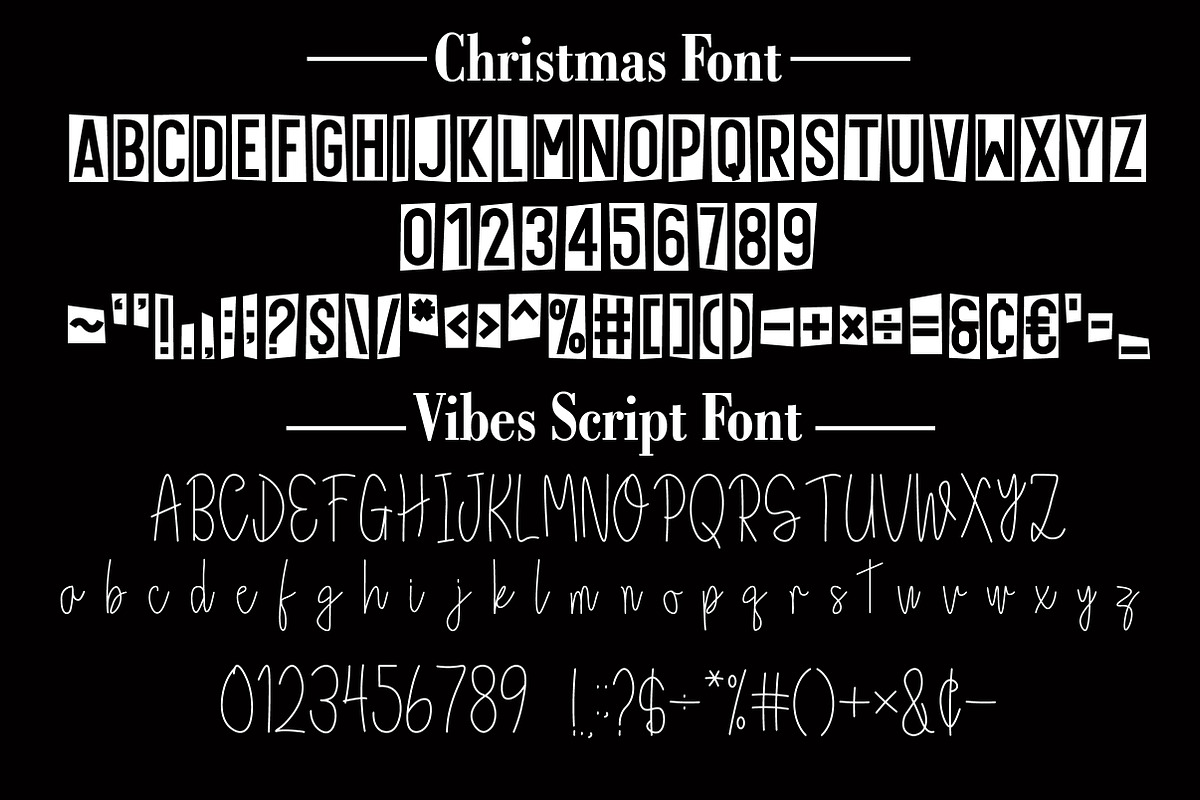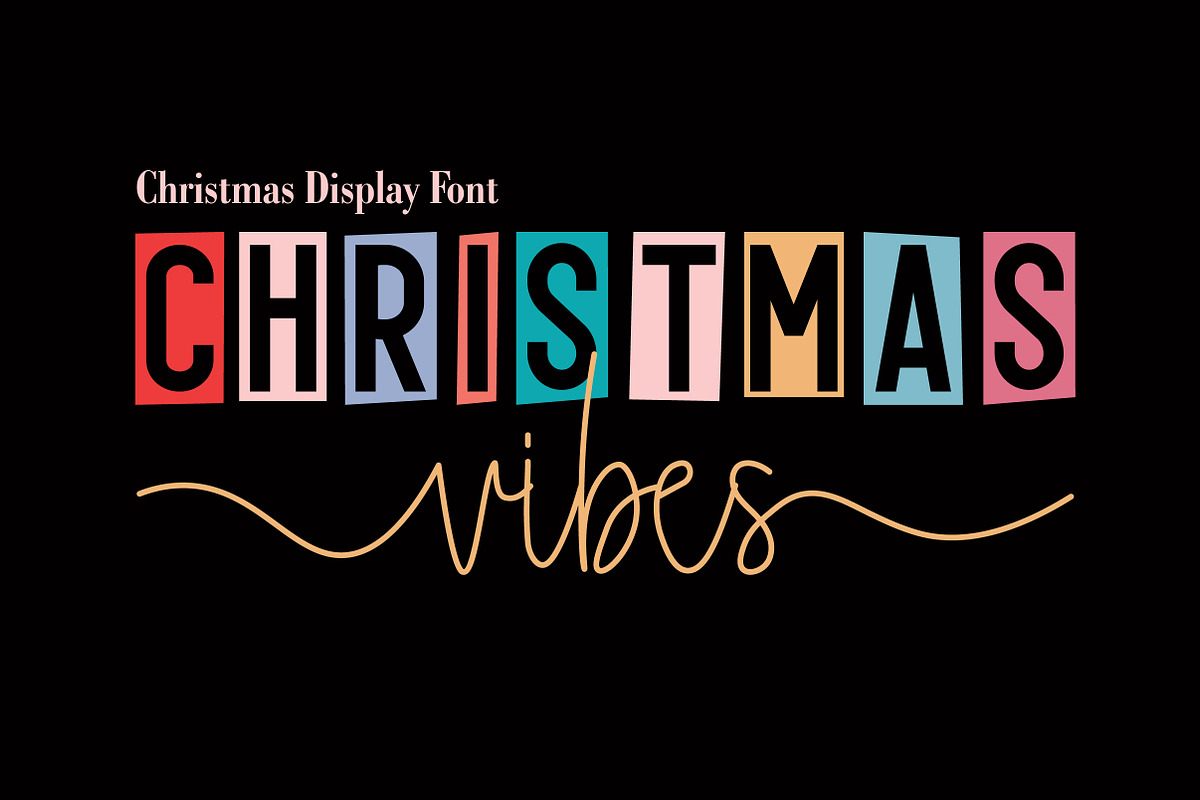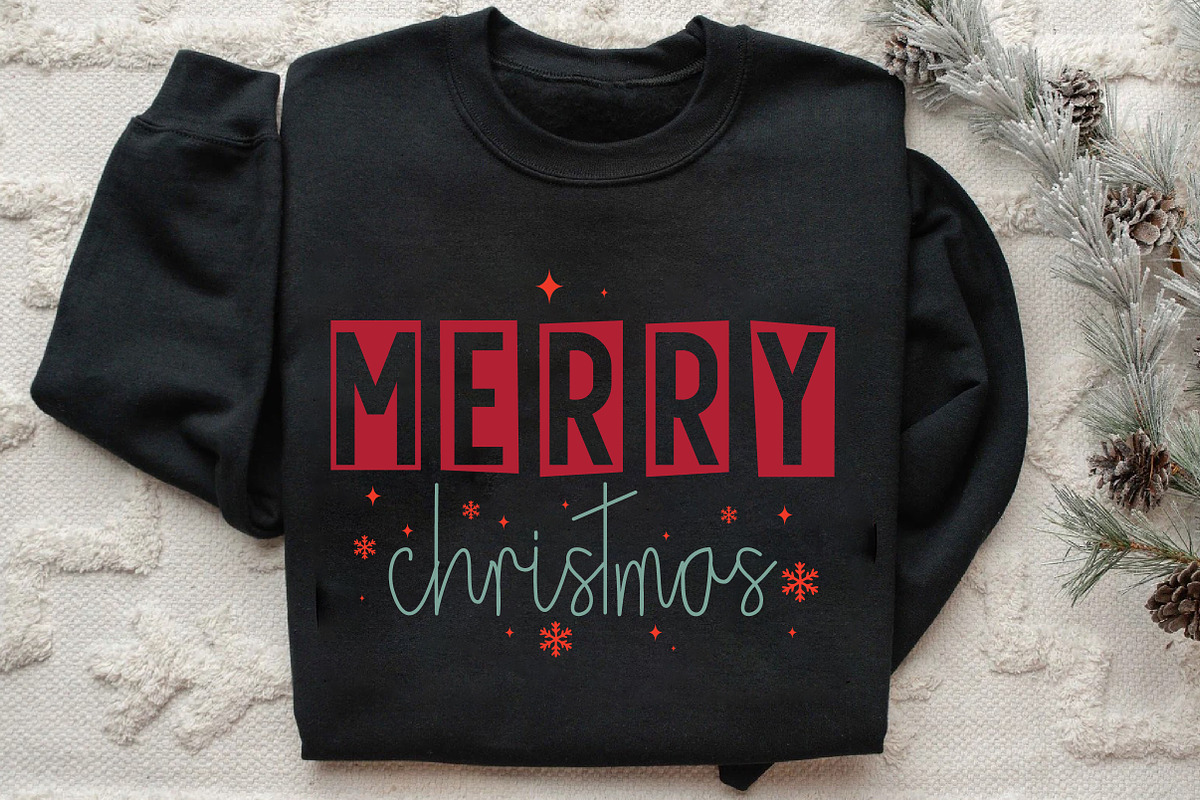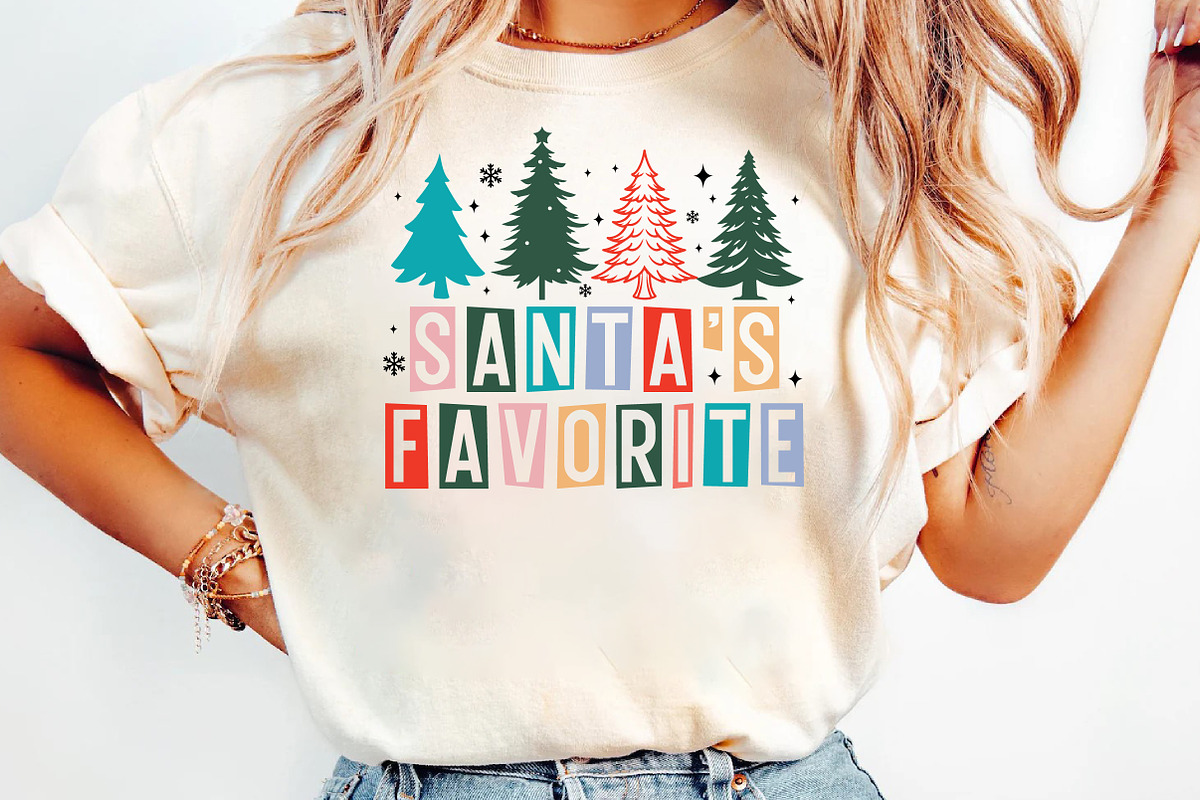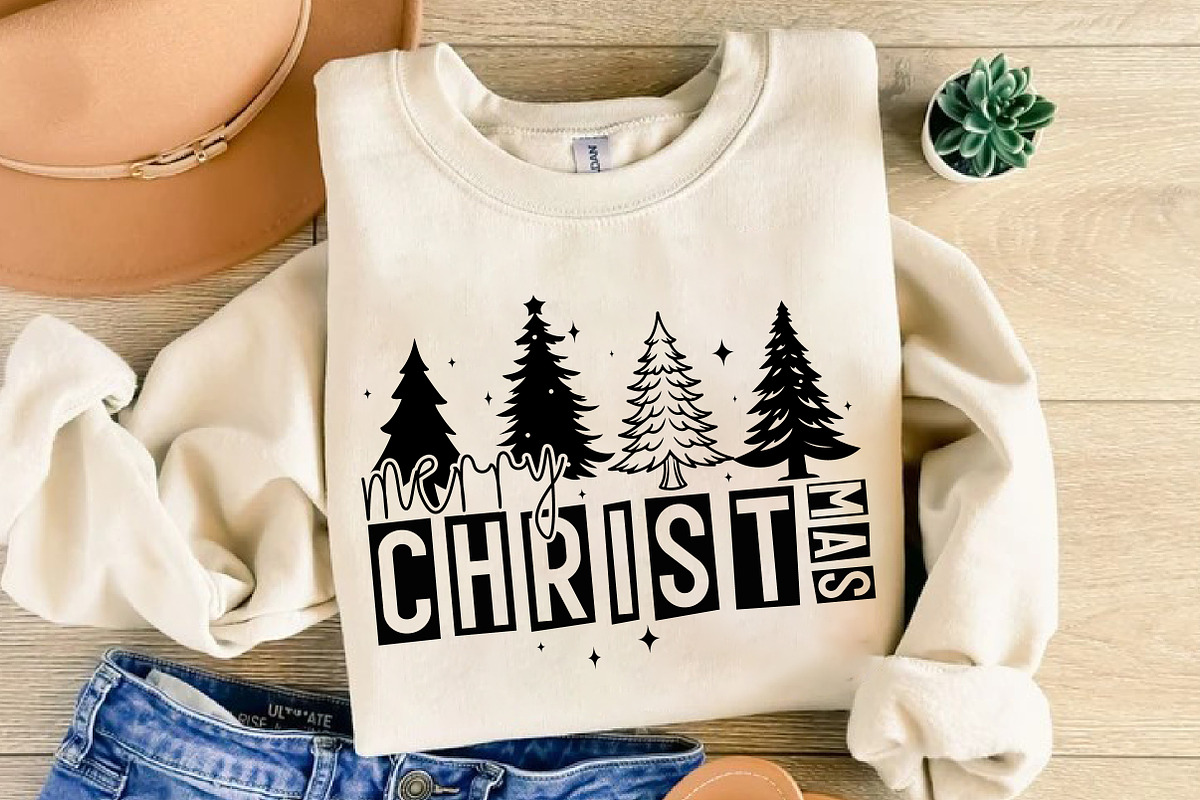
Christmas Vibes Duo
Christmas Vibes Duo is a bold and impactful display font that features strong with sharp edges and corners. This font contains two Christmas variations. Their amazing features can make your Christmas more cheerful. Christmas Fonts are sharp cool fonts and Vibes Cursive fonts are very consistent. So add it to your Christmas plans now. Enjoy the results. Thanks